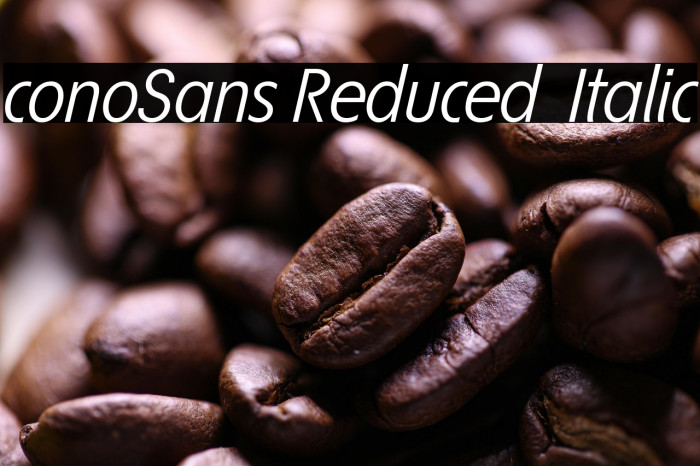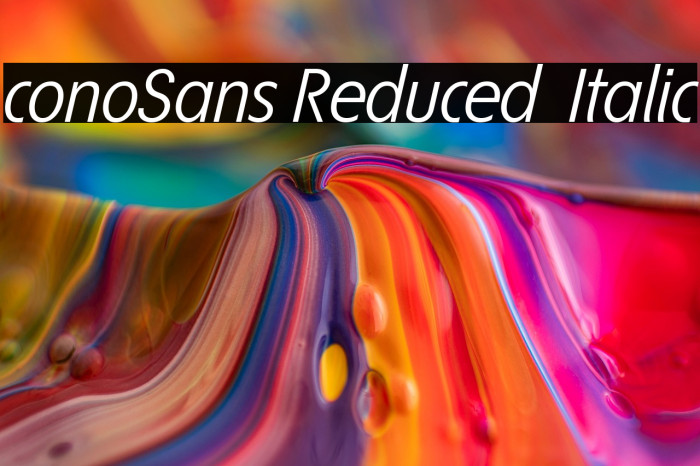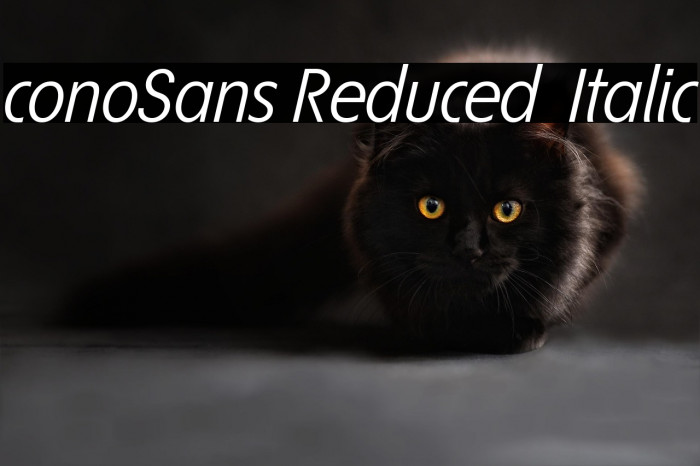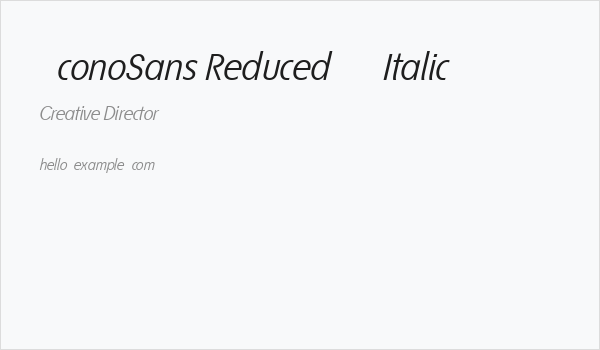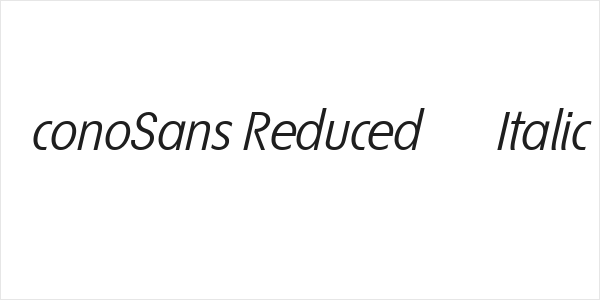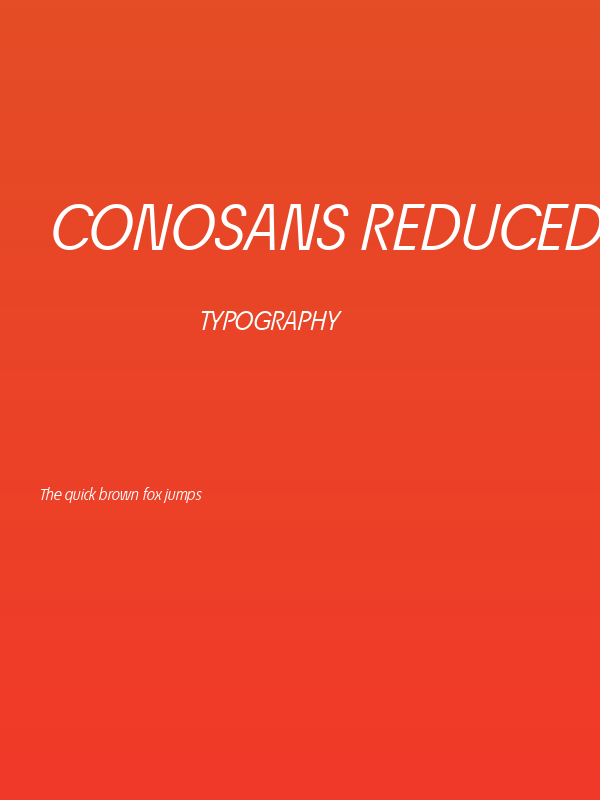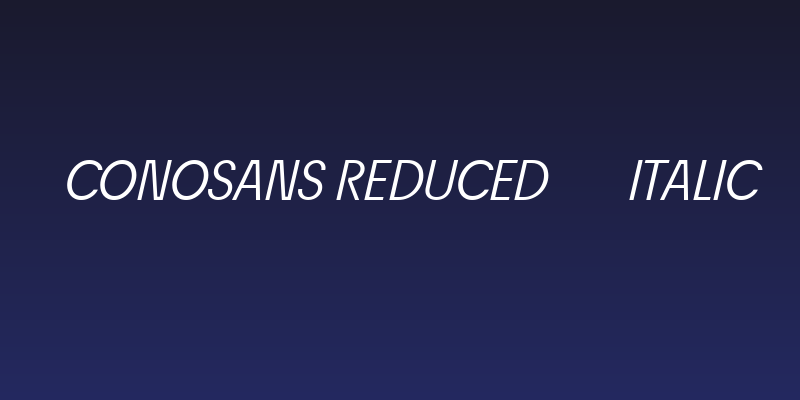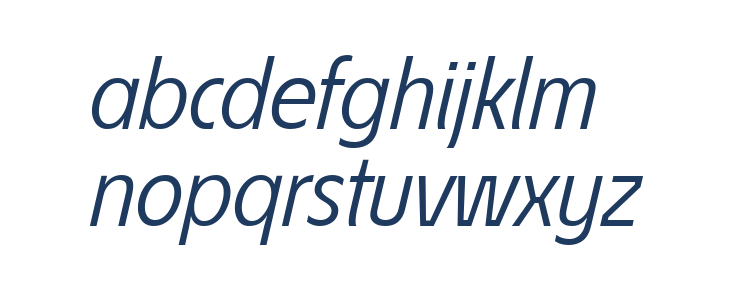
ÉconoSans Reduced 56 Italic Font
ÉconoSans Reduced 56 Italic Description
This font features a sleek, modern design with a slightly condensed form. The characters are italicized, giving a sense of motion and elegance. The strokes are consistent in thickness, providing a uniform appearance across all characters. The font maintains a clean and professional look, suitable for various applications. The uppercase and lowercase letters are well-proportioned, and the numbers are clear and legible. Special characters are included, maintaining the same stylistic features as the alphabetic characters. Overall, this font is versatile and can be used in both formal and informal contexts.